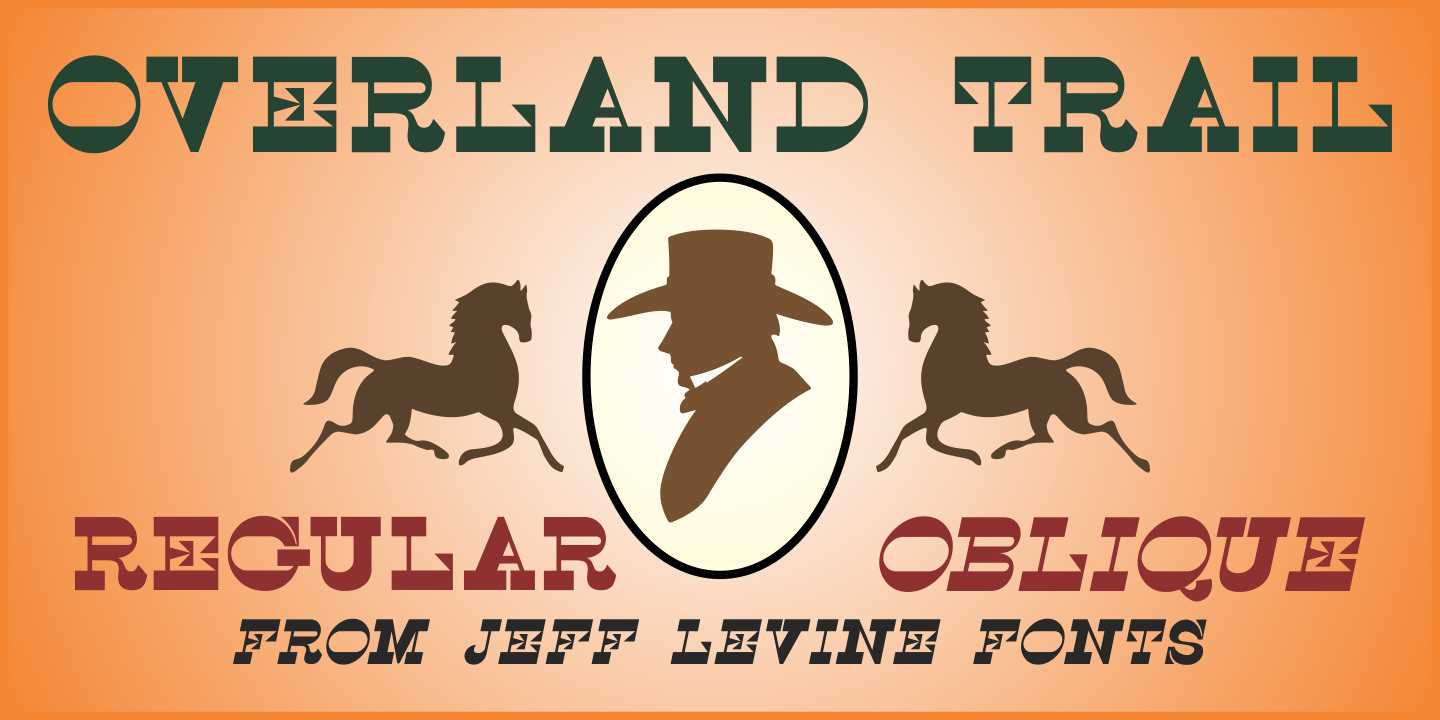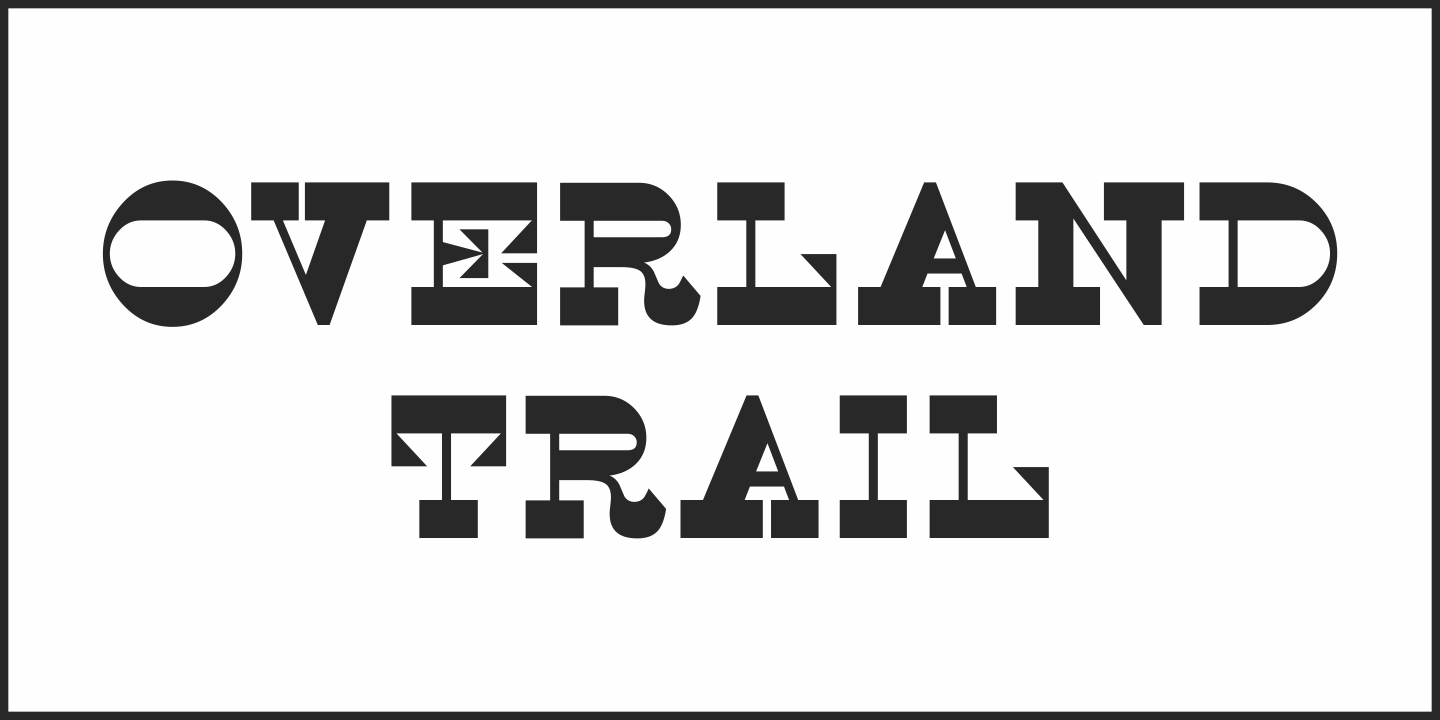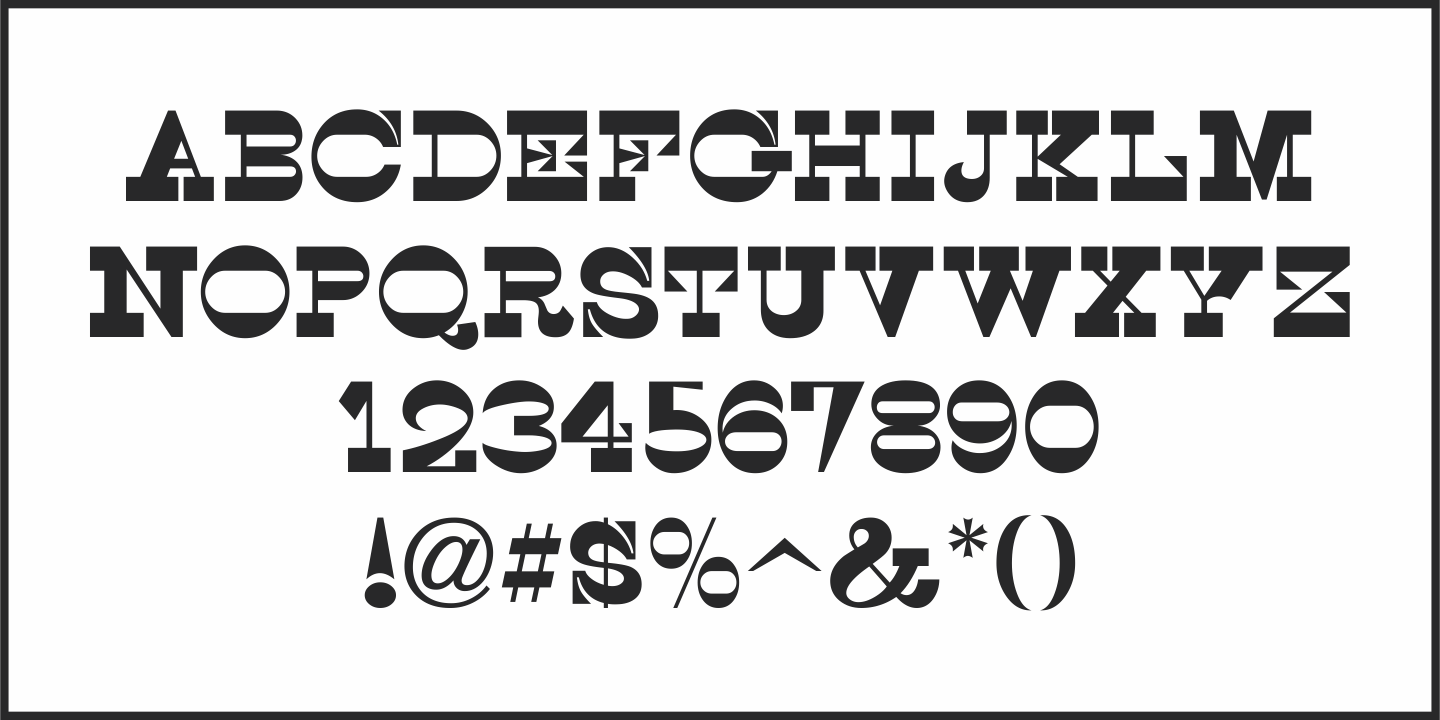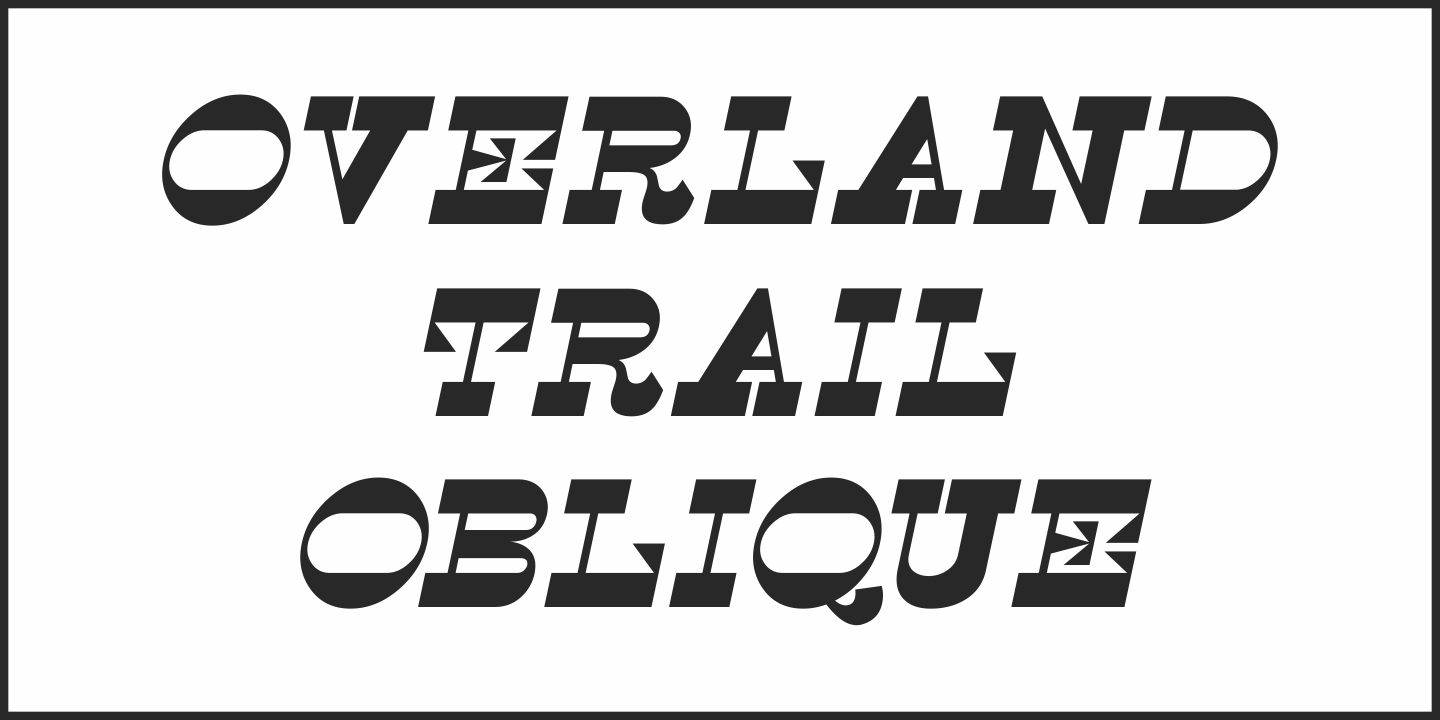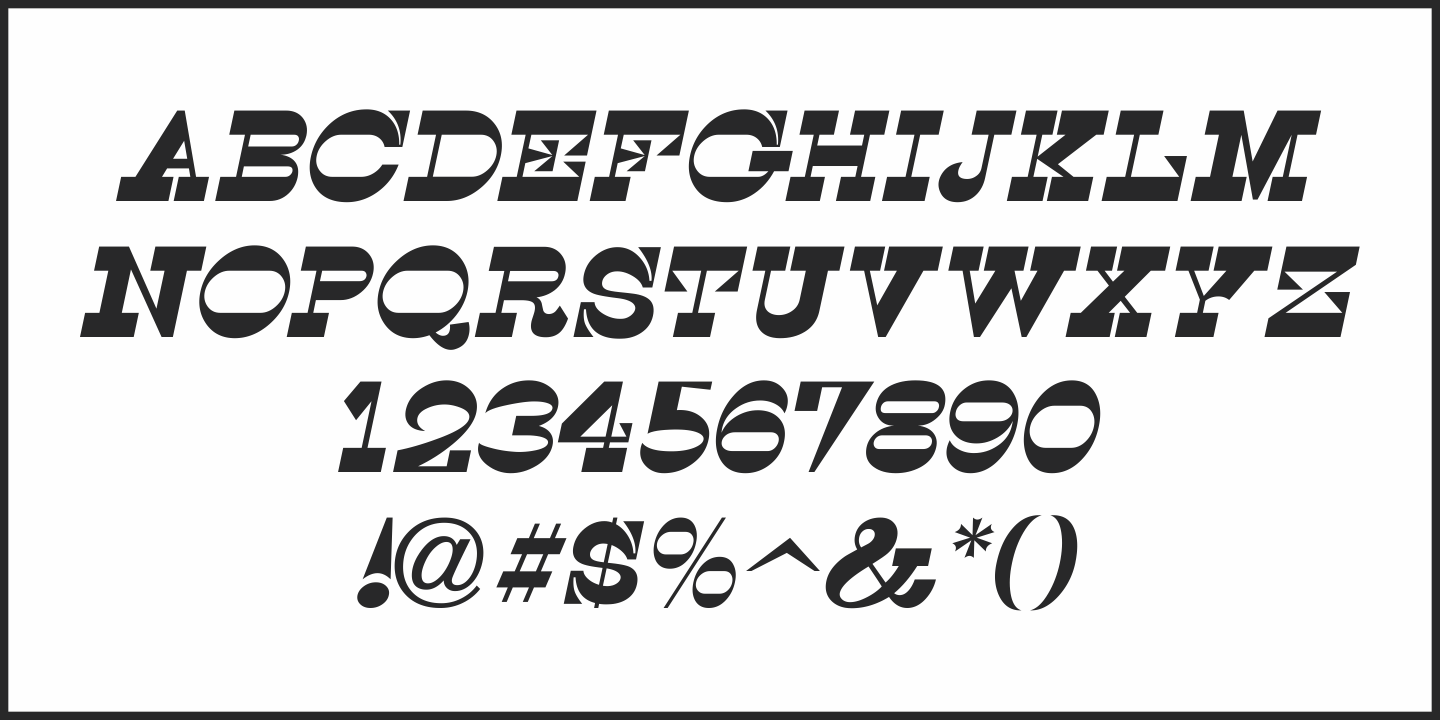
Overland Trail
Overland Trail JNL is Jeff Levine Fonts’ interpretation of “Italian”, first introduced in 1821 by the Caslon & Catherwood Type Foundry.
Unique and somewhat similar to Faux Pas JNL with its eccentric stroke weights (opposite what is considered normal for serif fonts), the typeface features a design most associated with the Old West.
Overland Trail JNL is available in both regular and oblique versions.